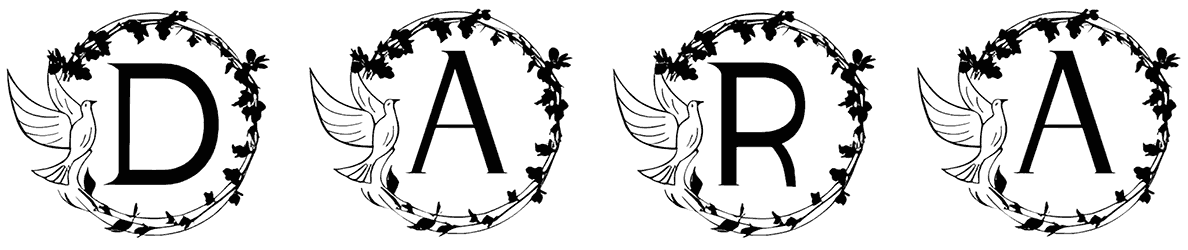
Monogram Dara Font
With a kind and peaceful design, the monogram font is perfect to bring an impressive and feminine characteristic to your graphic designs. If you have a project that needs a feminine and girly sense, you’ll come back to this font again and again. Monogram Dara font without lowercase letters can work perfectly for cosmetics, self-care products, water bottles, and dull packaging.